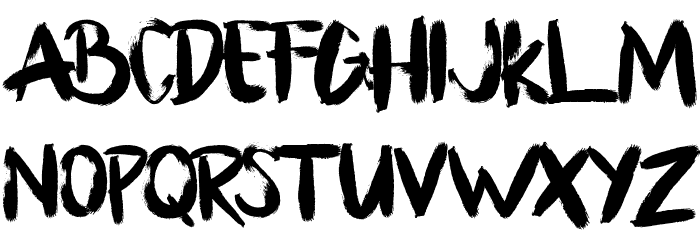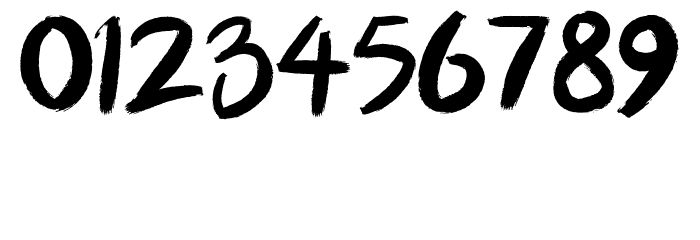
Bllody Rainan Font
This font features a bold and expressive brush style, characterized by its dynamic and energetic strokes. The letters are crafted with a sense of movement, giving them a lively and artistic appearance. The uppercase and lowercase letters maintain a consistent style, with a slightly rough texture that adds to the handmade feel. The numerals are equally bold, ensuring readability while maintaining the font's unique character. This font is ideal for projects that require a personal touch, such as posters, invitations, and branding materials that aim to convey creativity and individuality.
A bold, expressive brush-style font with dynamic strokes and a handmade feel.
- Font: Bllody Rainan
- Proposed Projects: Ideal for posters, invitations, branding, and any creative projects requiring a personal touch.